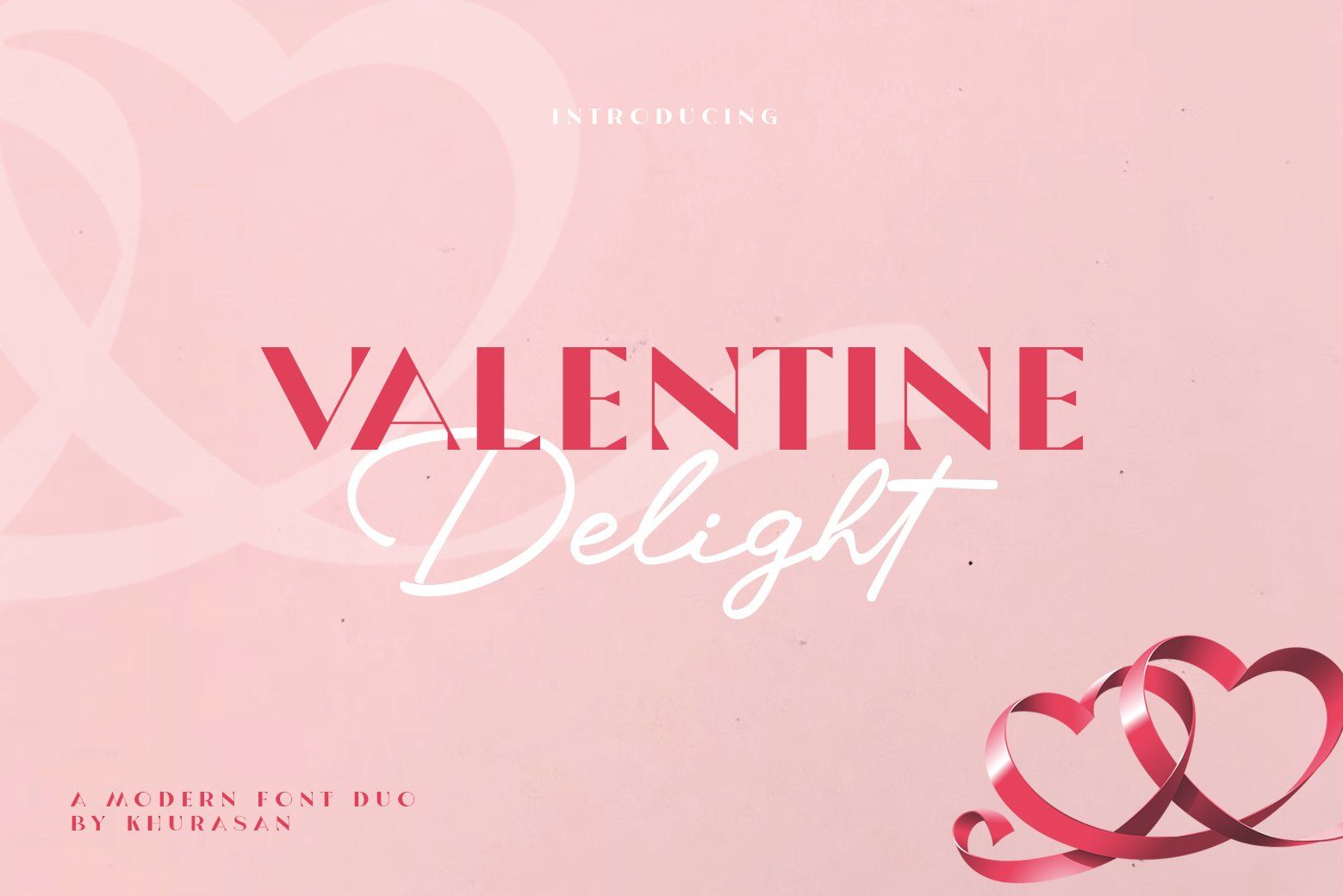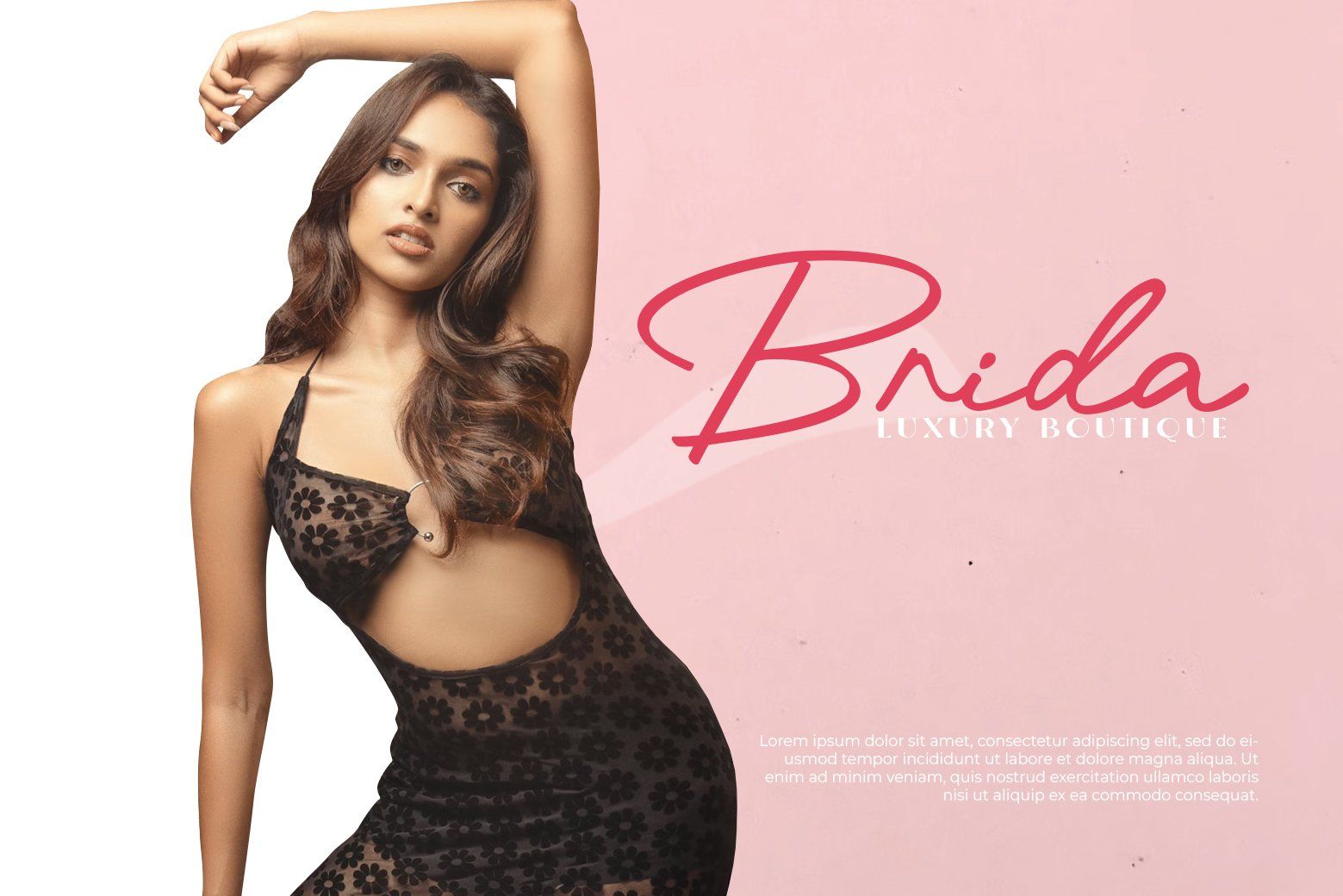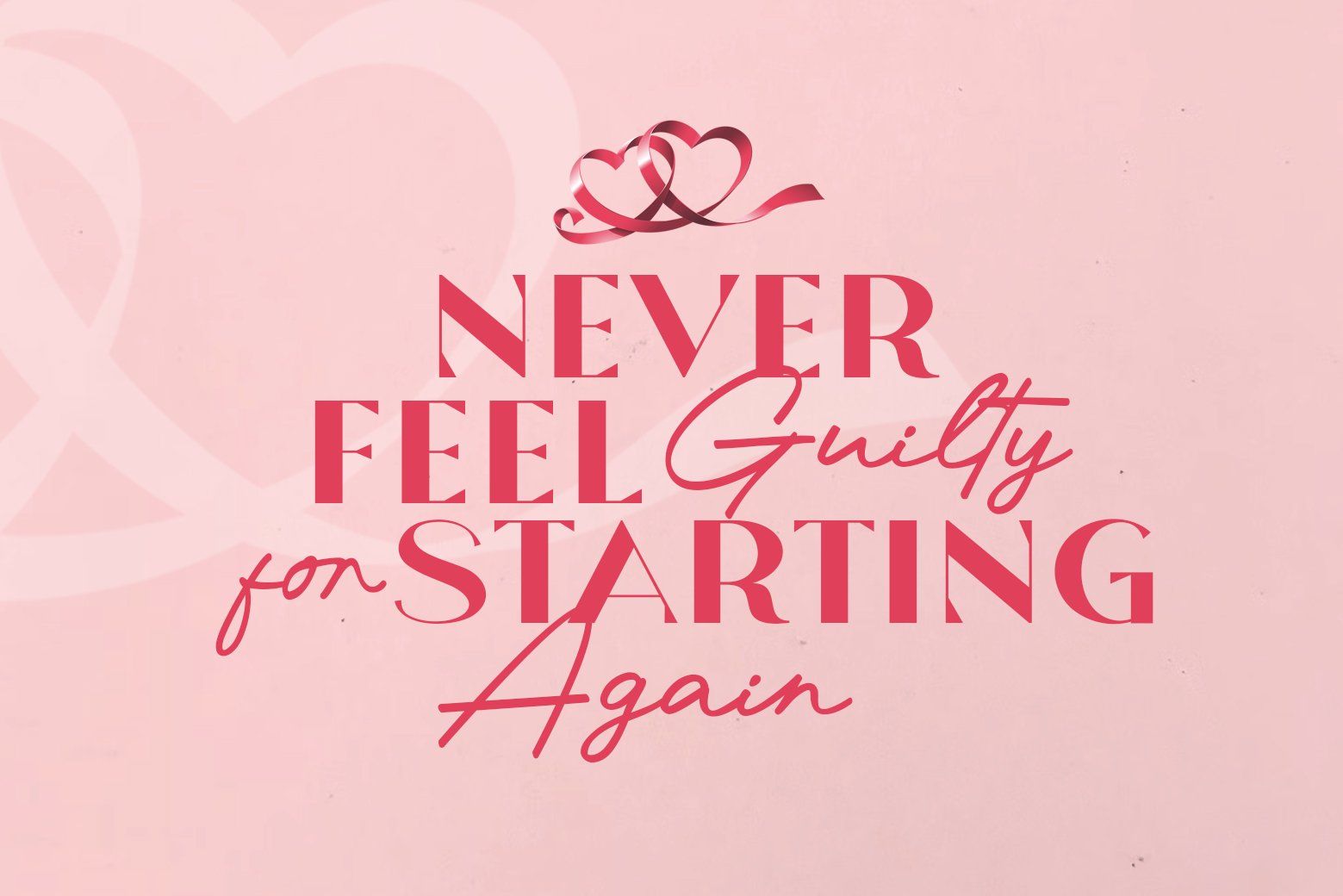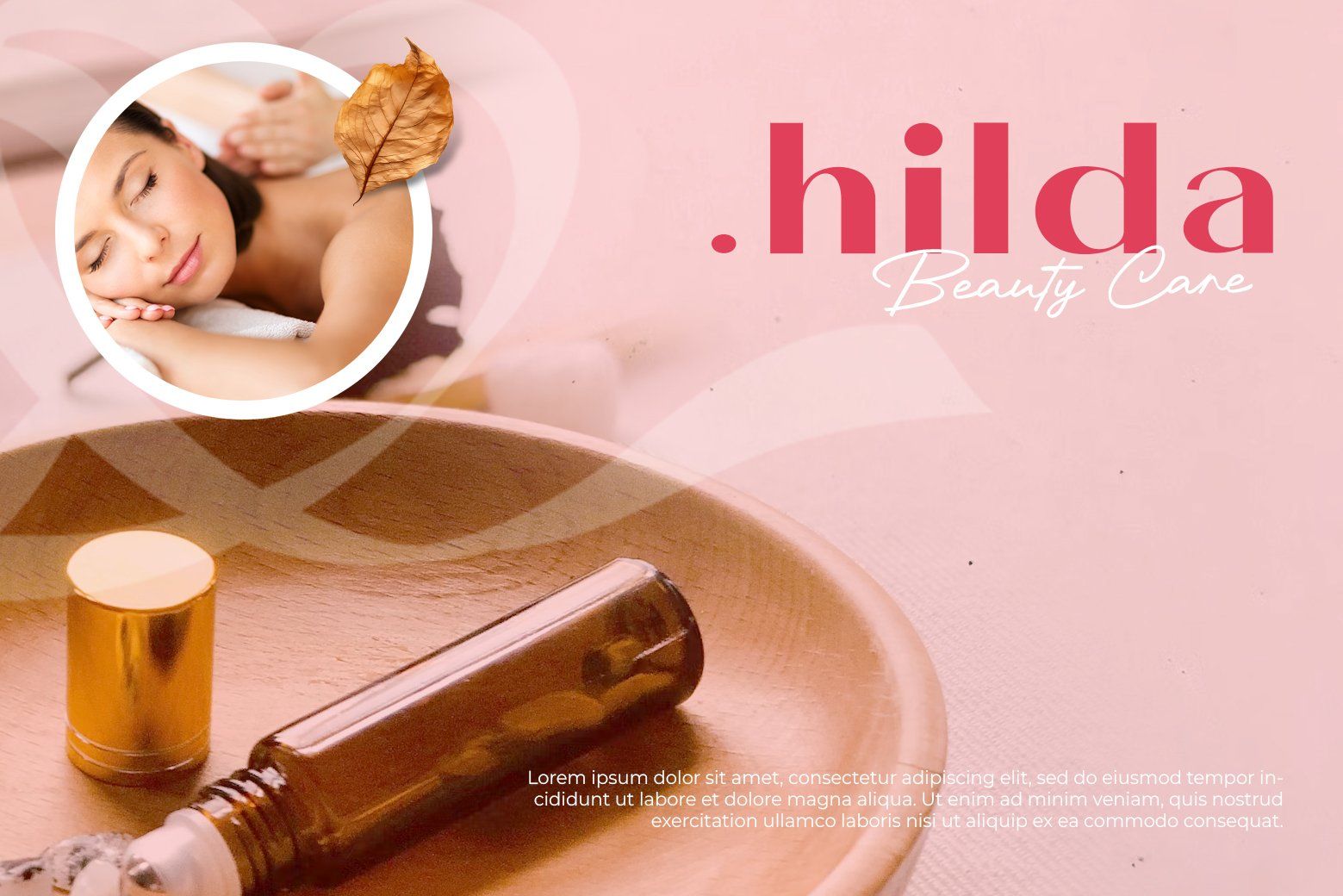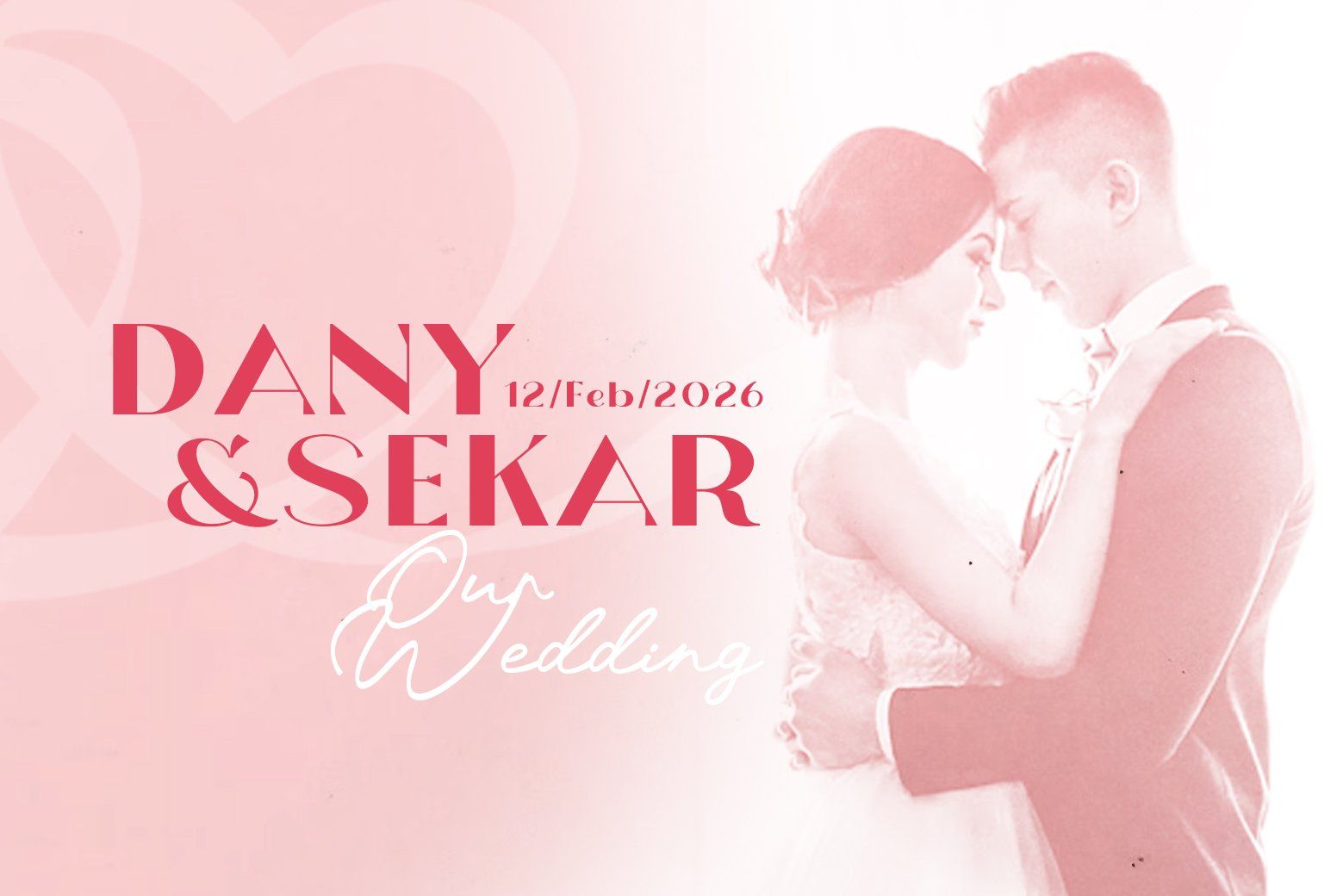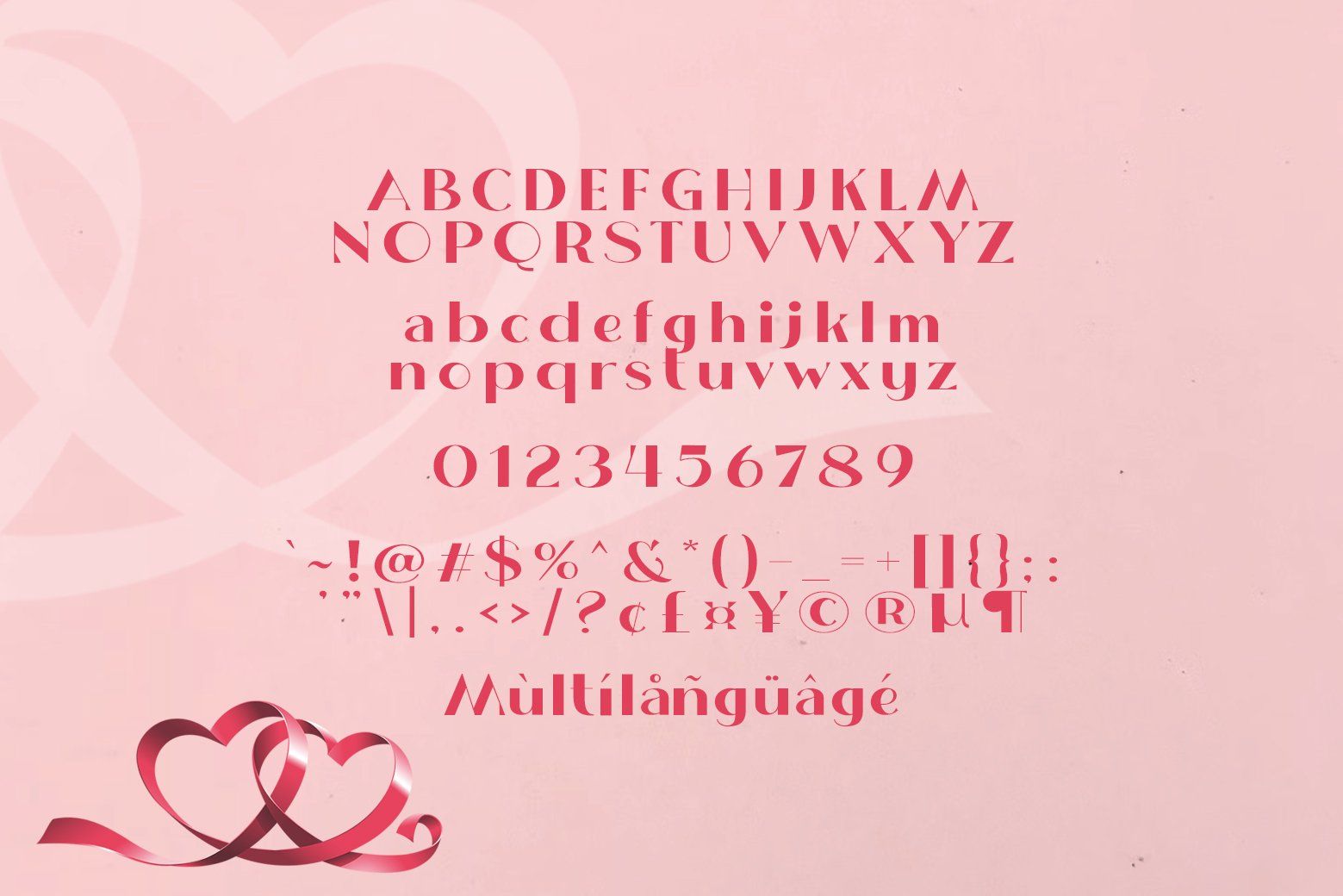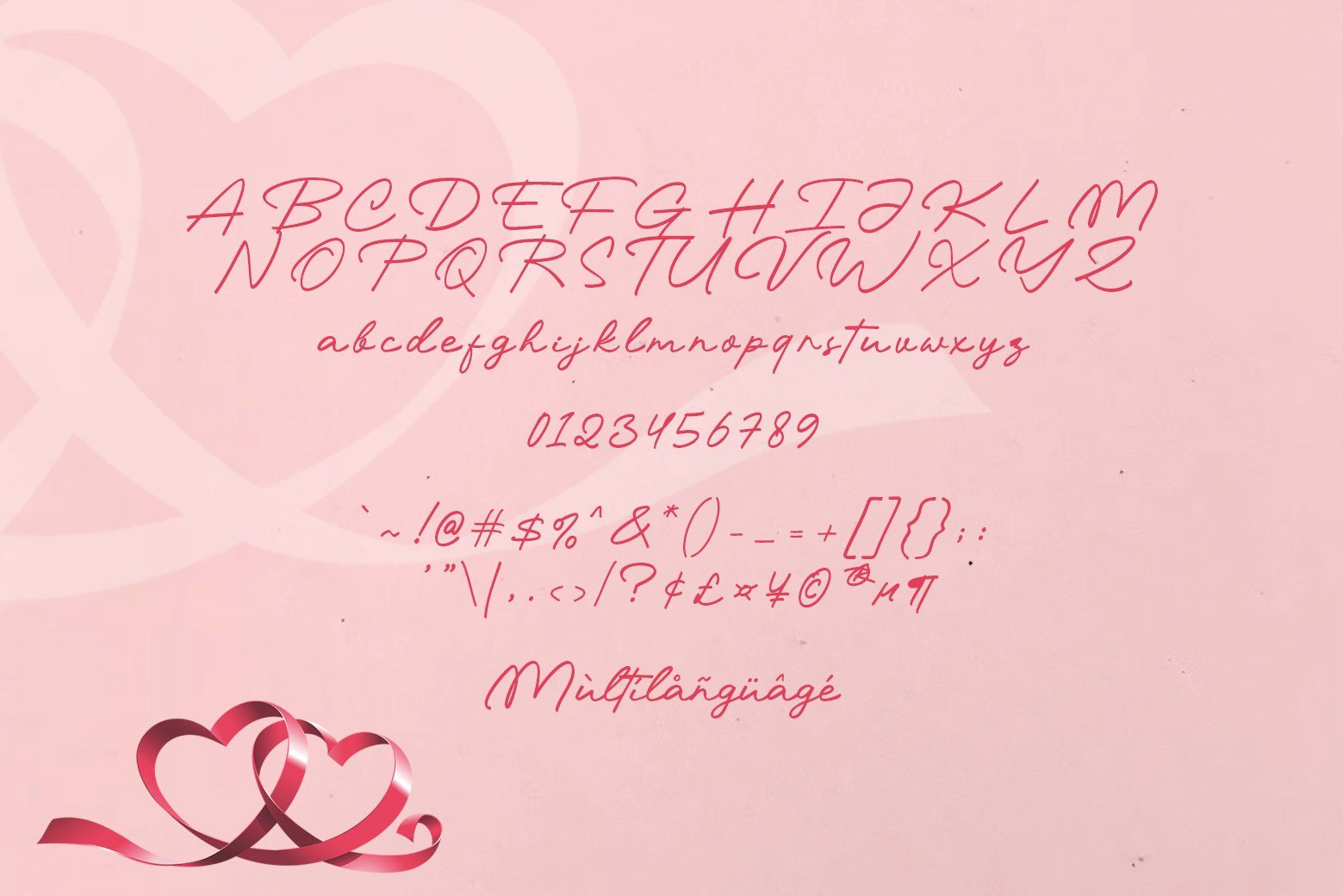
Create heartfelt designs with Valentine Delight—a romantic font duo that tells love stories through beautiful typography.
Valentine Delight pairs an elegant script that flows like handwritten love notes with a clean, modern serif that brings perfect balance and clarity. Together, they create harmonious typography that feels warm, intimate, and unforgettable—capturing hearts through every letter.
This versatile font duo is perfect for wedding invitations, Valentine's Day cards, romantic branding projects, social media quotes, and love-themed packaging. The combination adds passion and charm that instantly connects with your audience's emotions.